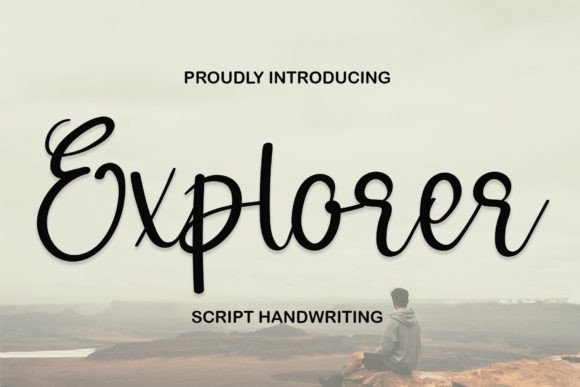
The Perfect Touch: Unveiling the Explorer Font
Have you ever sat down with a blank sheet of paper and a pen, and let the words just flow? It’s a magical moment, isn’t it? The ink glides across the page, and suddenly, a beautiful story or message begins to take shape. As designers, we’re always on the lookout for the perfect tools to bring our creative visions to life. And that’s where the Explorer Font comes in.
This dainty and flowing handwritten font is the perfect addition to any design project that needs a romantic, personalized touch. Whether you’re crafting wedding invitations, designing greeting cards, or simply want to add a touch of whimsy to your branding, Explorer Font is the perfect choice. Its sweet and joyful feel makes it a valuable asset for designers who want to add a little extra magic to their work.
Explorer Font Key Features
- Unique Characteristics: Explorer Font features a unique blend of modern and vintage elements, with a distinctive flair that sets it apart from other fonts.
Designer Review: Explorer Font
Overall, I have mixed feelings about the Explorer Font. On one hand, it has some great qualities that make it a decent choice for certain projects.
- Unique and adventurous feel: The Explorer Font has a distinct, bold look that’s perfect for headings and titles. It’s great for grabbing attention and adding a sense of excitement to your design.
- Good legibility: Despite its bold appearance, the font is still easy to read, even at smaller sizes. This makes it a good choice for body text, especially in digital designs.
- Wide language support: The Explorer Font supports a wide range of languages, making it a good option for multilingual designs.
- Limited flexibility: The font is quite bold and doesn’t have much flexibility in terms of weight and style. This can make it difficult to use in designs where a more subtle look is required.
- Not ideal for long text: The font’s bold appearance can make long blocks of text difficult to read, especially in print designs.
Overall, I think the Explorer Font is a decent choice for projects that require a bold, adventurous look. However, it may not be the best option for designs that need a more subtle or flexible font.
Tips for Getting the Most Out of Explorer Font
Use Explorer Font in headings and titles to create a bold and adventurous look.
Pair Explorer Font with other bold fonts to create a striking contrast.
Use Explorer Font in a distressed or worn-out style to give your design a vintage look.
Explorer Font is perfect for:
Adventure and travel-related designs.
Outdoor and nature-inspired designs.
Wild and free-spirited branding and marketing materials.
Alternatives to Explorer Font
Inter Font is a modern sans-serif typeface designed by Rasmus Andersson. It’s a highly legible font, making it perfect for body text and digital interfaces. Use Inter Font when you need a clean and neutral font for your design.
Inter Font is more modern and clean compared to Explorer Font, with a more open and airy feel. It’s ideal for digital interfaces, product designs, and editorial content.
Open Sans is a popular sans-serif font designed by Steve Matteson. It’s highly legible and versatile, making it suitable for a wide range of applications, from body text to headings. Use Open Sans when you need a reliable and professional font for your design.
Open Sans is more rounded and friendly compared to Explorer Font, with a more balanced feel. It’s ideal for corporate designs, product designs, and editorial content.